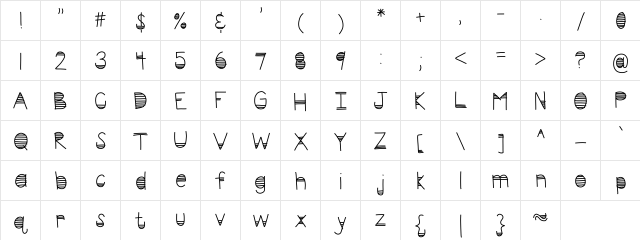
HomegirlFiftyShades Medium Font Preview
HomegirlFiftyShades Medium
Design Context for HomegirlFiftyShades Typeface
HomegirlFiftyShades is a composed and adaptable typeface that performs quietly and consistently across a wide range of design contexts.